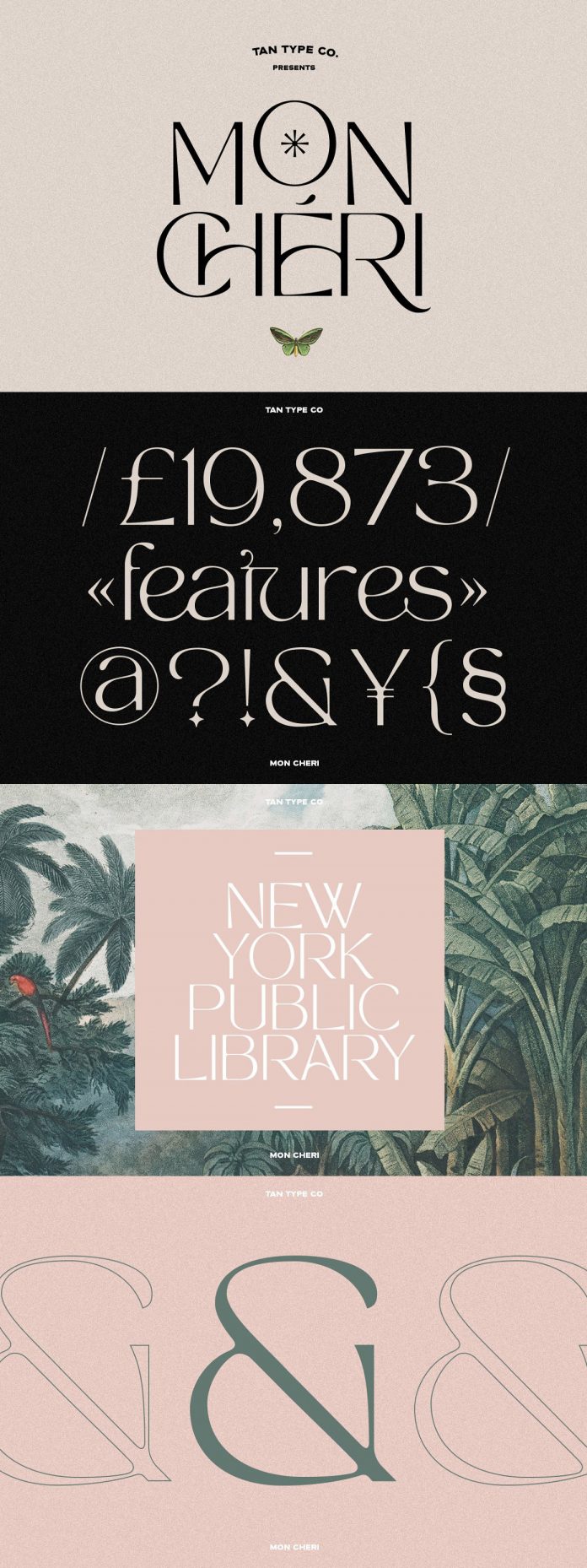
TAN MON CHERI, an elegant display font from foundry TanType.
Designed and published by foundry TanType, this new sans-serif display font comes with plenty of elegant features. TAN MON CHERI is equipped with numerous ligatures and alternate letters to give you countless options for unique titles and short text sections. The font’s elegant style is well-suited for a wide range of applications including magazine headlines, posters, greeting cards, packaging, clothing, web design, social media, etc.